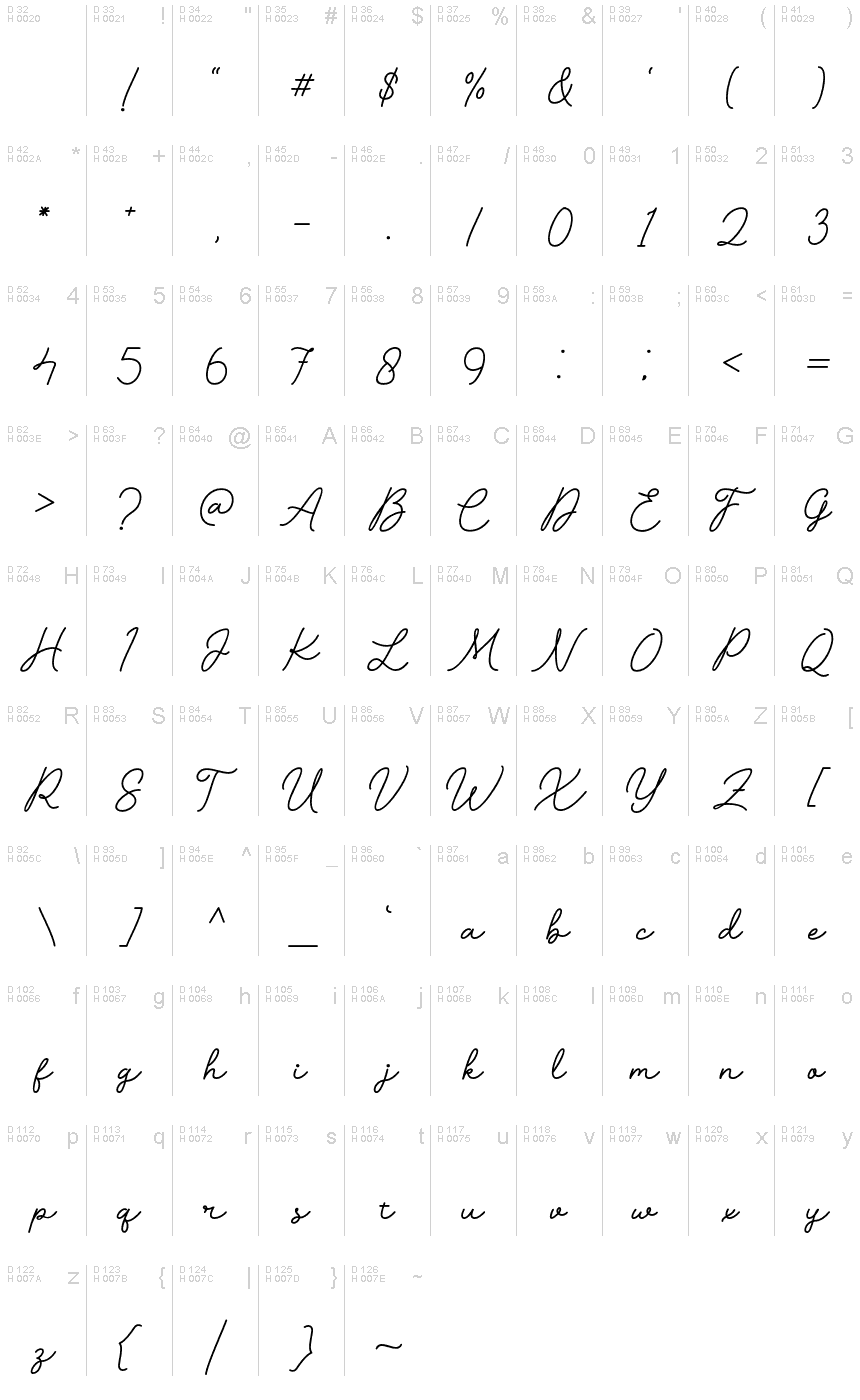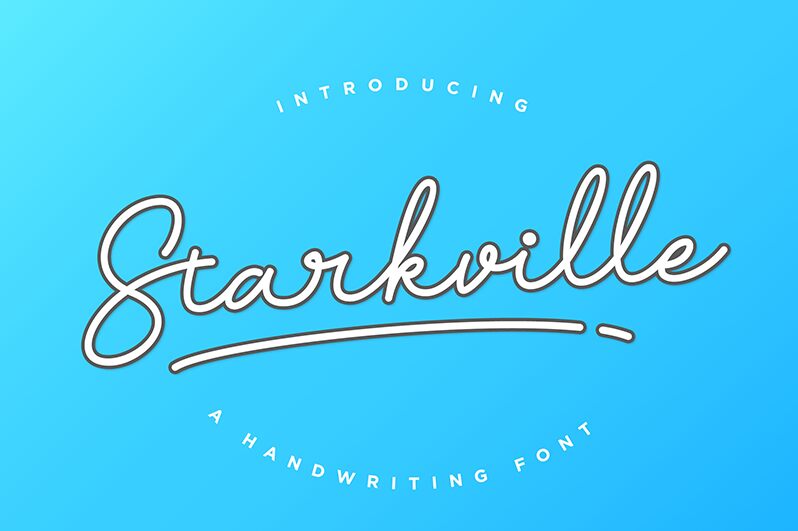
Starkville
Starkville, the latest creation by MJType, is a semi-light handwritten font that boasts both simplicity and elegance. Its soft curves and gentle strokes create a sense of approachability, making it perfect for projects that require a friendly touch. The font's semi-light weight adds to its versatility, allowing it to be used for anything from wedding invitations to product packaging. Starkville's handwritten style exudes personality and warmth, making it an excellent choice for personal branding or social media graphics. With its unique blend of simplicity and character, Starkville is sure to make any project stand out.